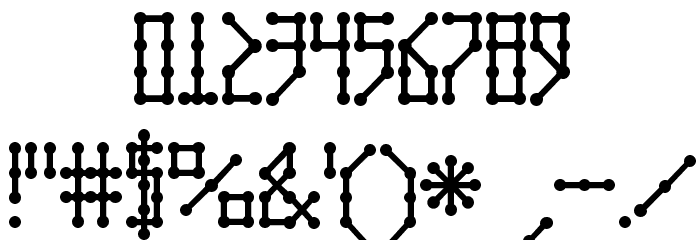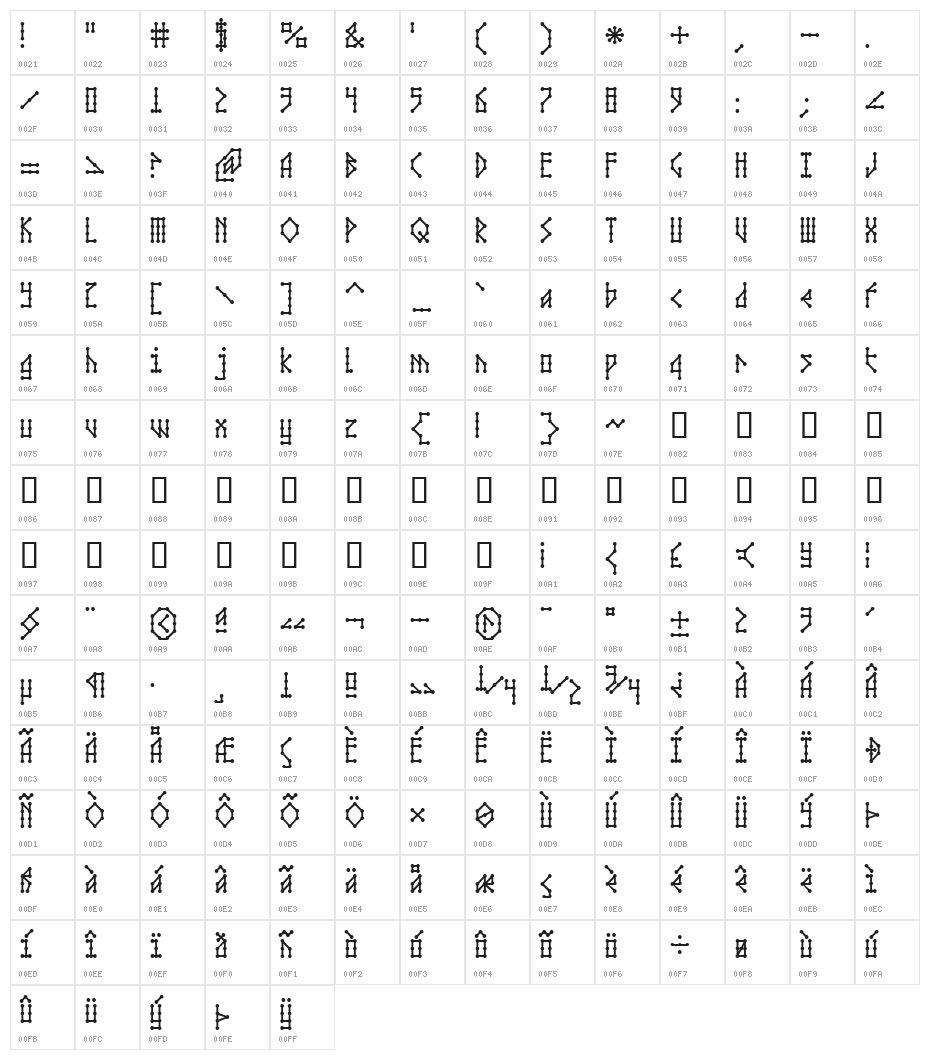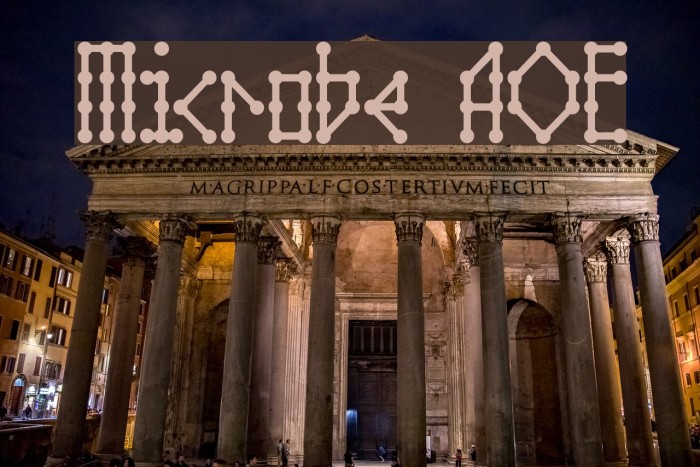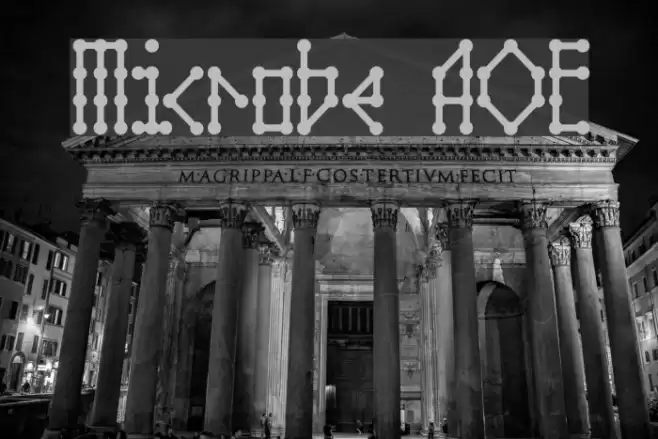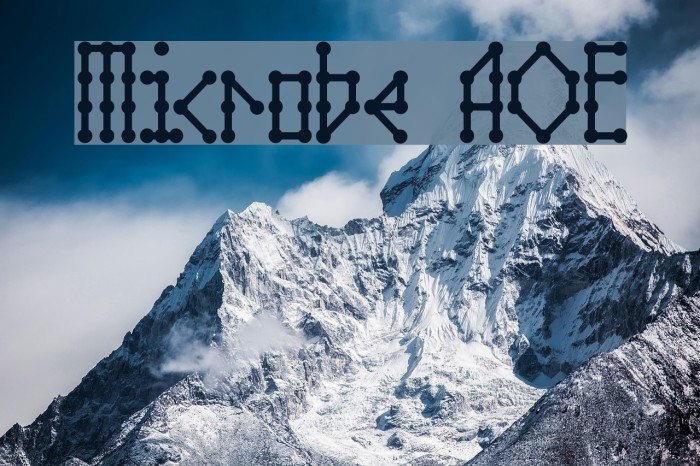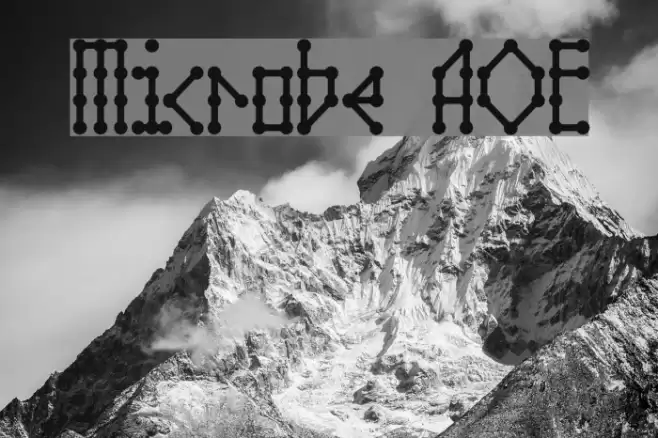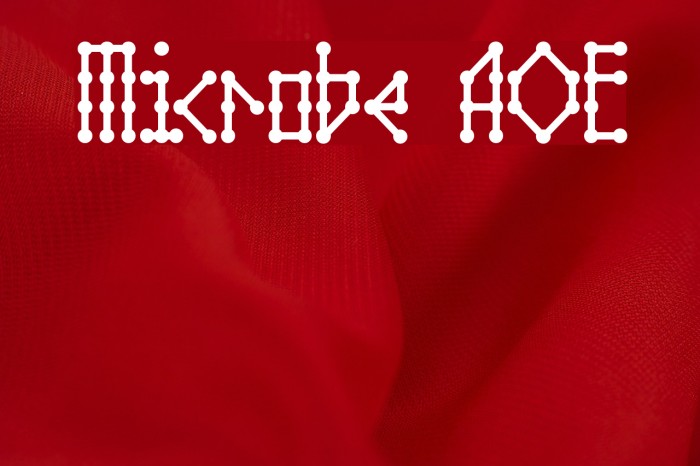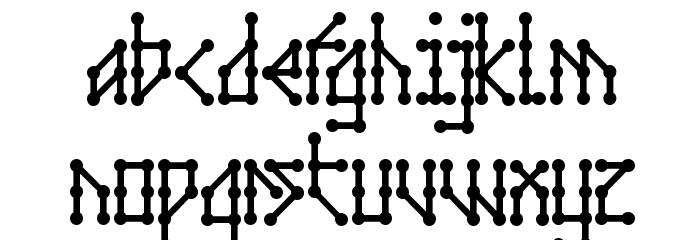
Microbe AOE Font
Microbe AOE Description
This font features a unique design where each character is constructed using a series of connected dots, reminiscent of a molecular structure or a digital network. The geometric and modular appearance gives it a futuristic and tech-inspired look. The uppercase and lowercase letters maintain a consistent style, with each character being easily distinguishable despite the unconventional design. Numbers and special characters follow the same dotted pattern, ensuring uniformity across all glyphs. The font's distinct style makes it suitable for creative and modern projects that require a standout typographic element.
| Proposed Projects | Ideal for science fiction themes, tech branding, digital art projects, and innovative advertising campaigns. |